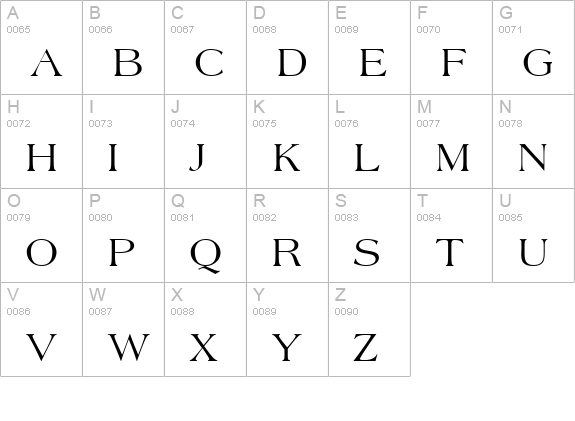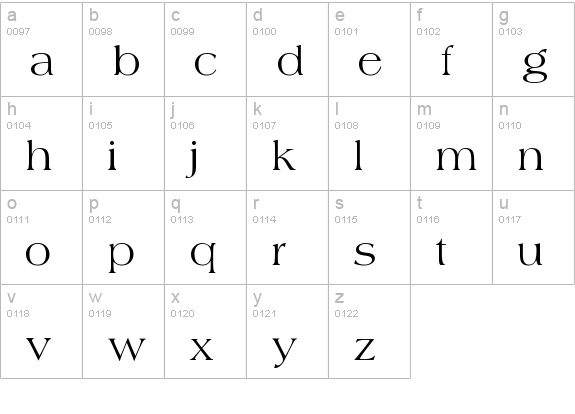
American Classic Font Details
American Classic font is a timeless typeface that exudes elegance and sophistication, making it a perfect choice for a wide range of design projects. With its clean lines and classic letterforms, this font is sure to add a touch of nostalgia and charm to any design. Whether you're working on a vintage-inspired poster, a retro logo, or a stylish invitation, American Classic font is a versatile option that will elevate your design to the next level. What makes American Classic font even more appealing is that it is available for free download at FontsMarket.com. This means that you can easily access this beautiful typeface and use it in your projects without any cost. So why wait? Download American Classic font today and add a touch of classic beauty to your designs.